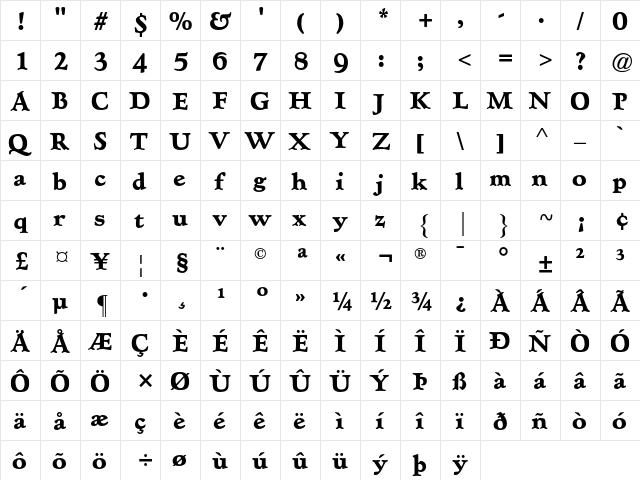
Hadriano AT ExtraBold Regular
Design Context for Hadriano AT ExtraBold Typeface
Hadriano AT ExtraBold offers clean, dependable letterforms without strong stylistic allegiance, making it a practical choice for designers who need flexibility. The heavy weight commands attention and anchors typographic hierarchies.